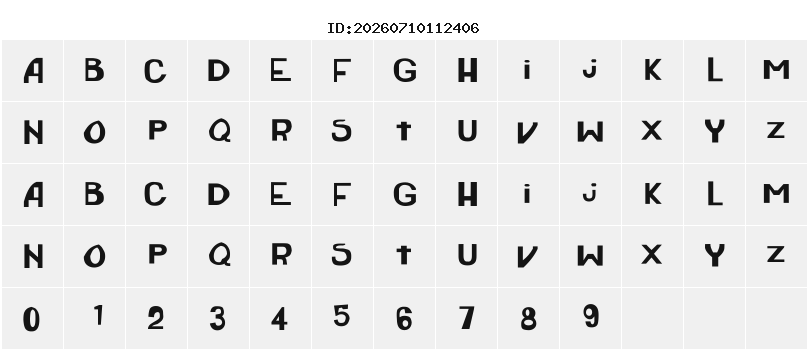
Earthworm Jim Preview
• Font Name: Earthworm Jim
• Font Style: onemal
• Font ID: marthworm J1.
• Full Font Name: Earthworm Jim
• Version: 1.10
• PostScript Name: Earthworm Jim
• Character Count: 216
About Earthworm Jim.ttf
Earthworm Jim.ttf is a modern, elegant sans-serif font designed for ultimate readability and visual harmony. Perfect for branding, headlines, web design, and print materials.